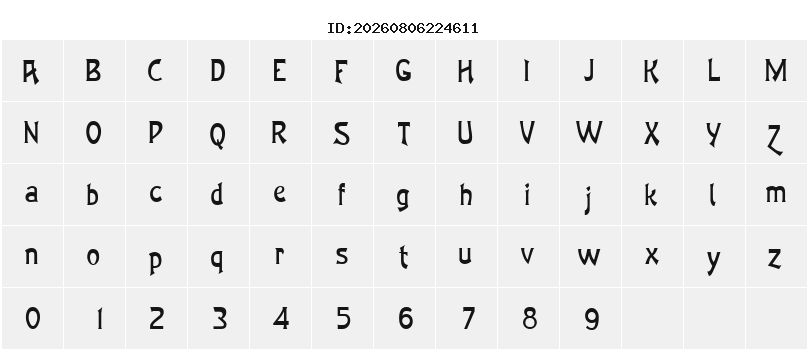
• Font Name: Oceana
• Font ID: Macromedia Fontographer 4.1.5 Oceana Normal
• Full Font Name: Oceana Normal
About Oceana.ttf
Oceana.ttf is a modern, elegant sans-serif font designed for ultimate readability and visual harmony. Perfect for branding, headlines, web design, and print materials.